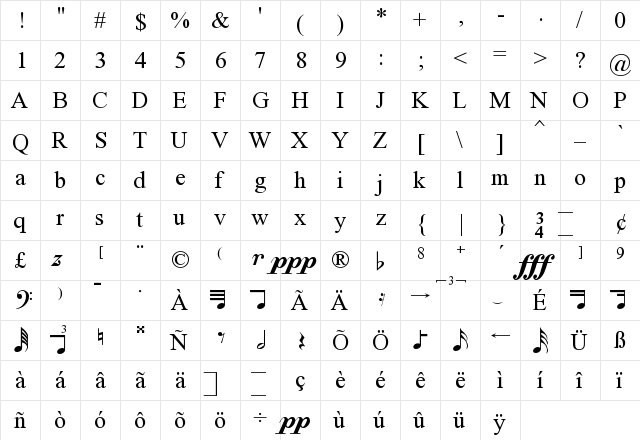
MaestroTimes Regular Font Preview
MaestroTimes Regular
Design Context for MaestroTimes Typeface
MaestroTimes offers clean, dependable letterforms without strong stylistic allegiance, making it a practical choice for designers who need flexibility.